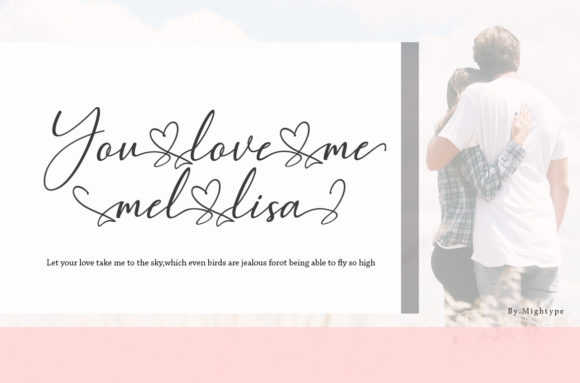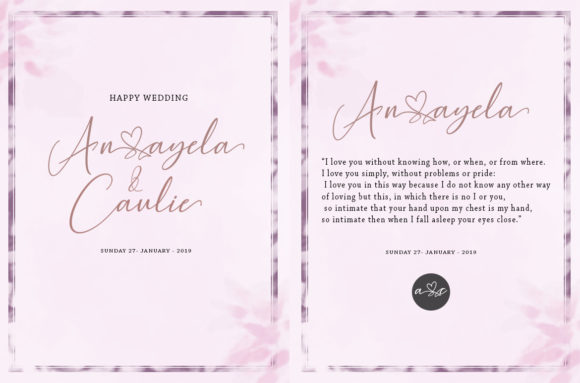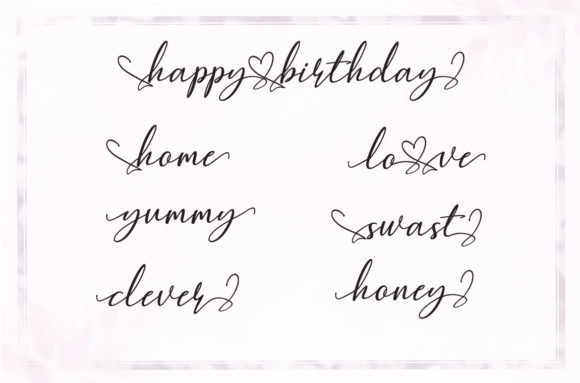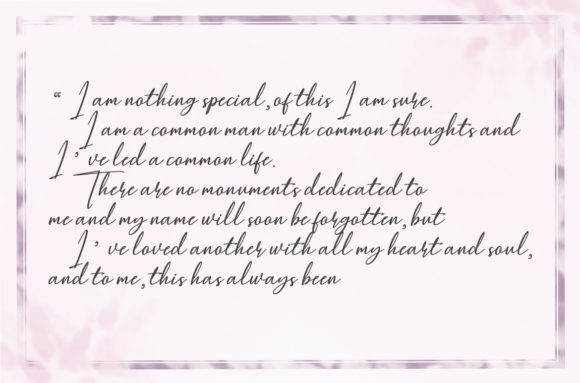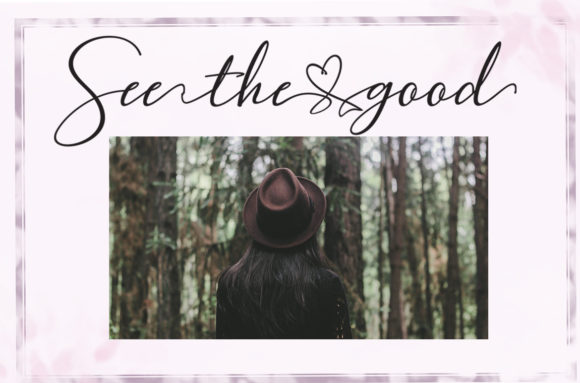
Hearth Stone Font
About Hearth Stone Font
The Hearth Stone is an elegant calligraphy font. It’s modern handwritten style is perfect for adding a luxurious feel to your designs.
It can be used for branding, wedding invites, magazines, mugs, business cards, quotes, posters, and more.